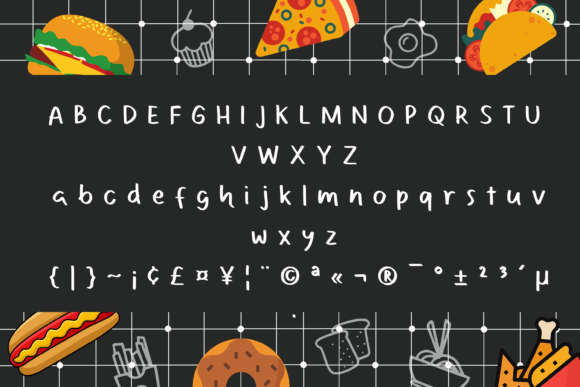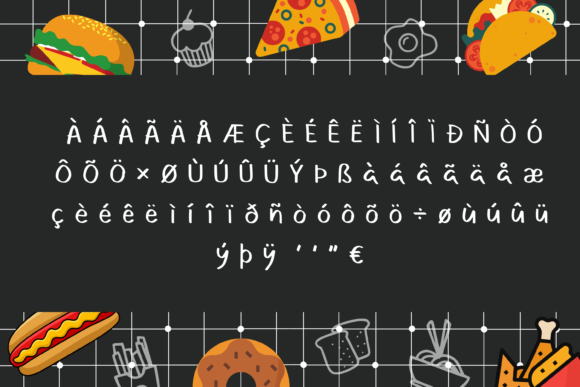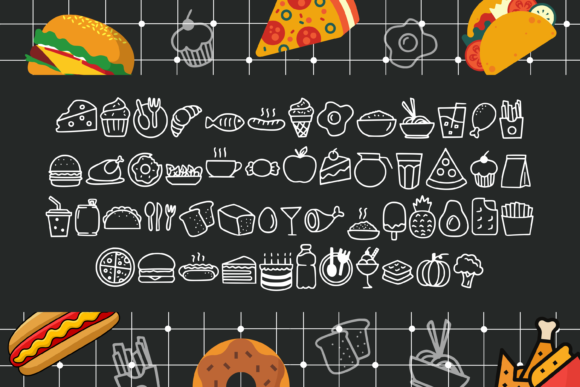
Introduction to Foodlist Font
Foodlist is a relaxed and adaptable duo font (dingbats and handwritten).
It will look stunning on any food menu, poster flyer or print Use this font for your designs and explore its endless possibilities.
Foodlist Font offers exceptional quality and versatility, making it a valuable addition to your design toolkit. Whether you’re creating for personal projects or commercial use, Foodlist Font delivers professional results.